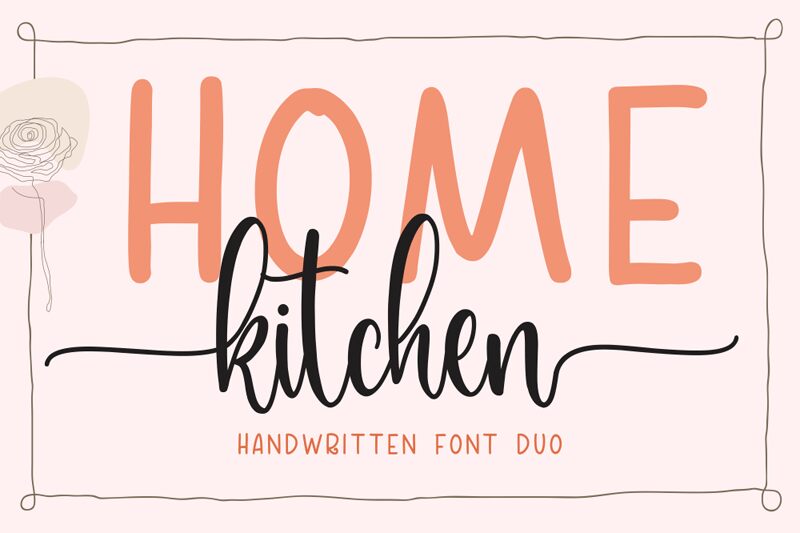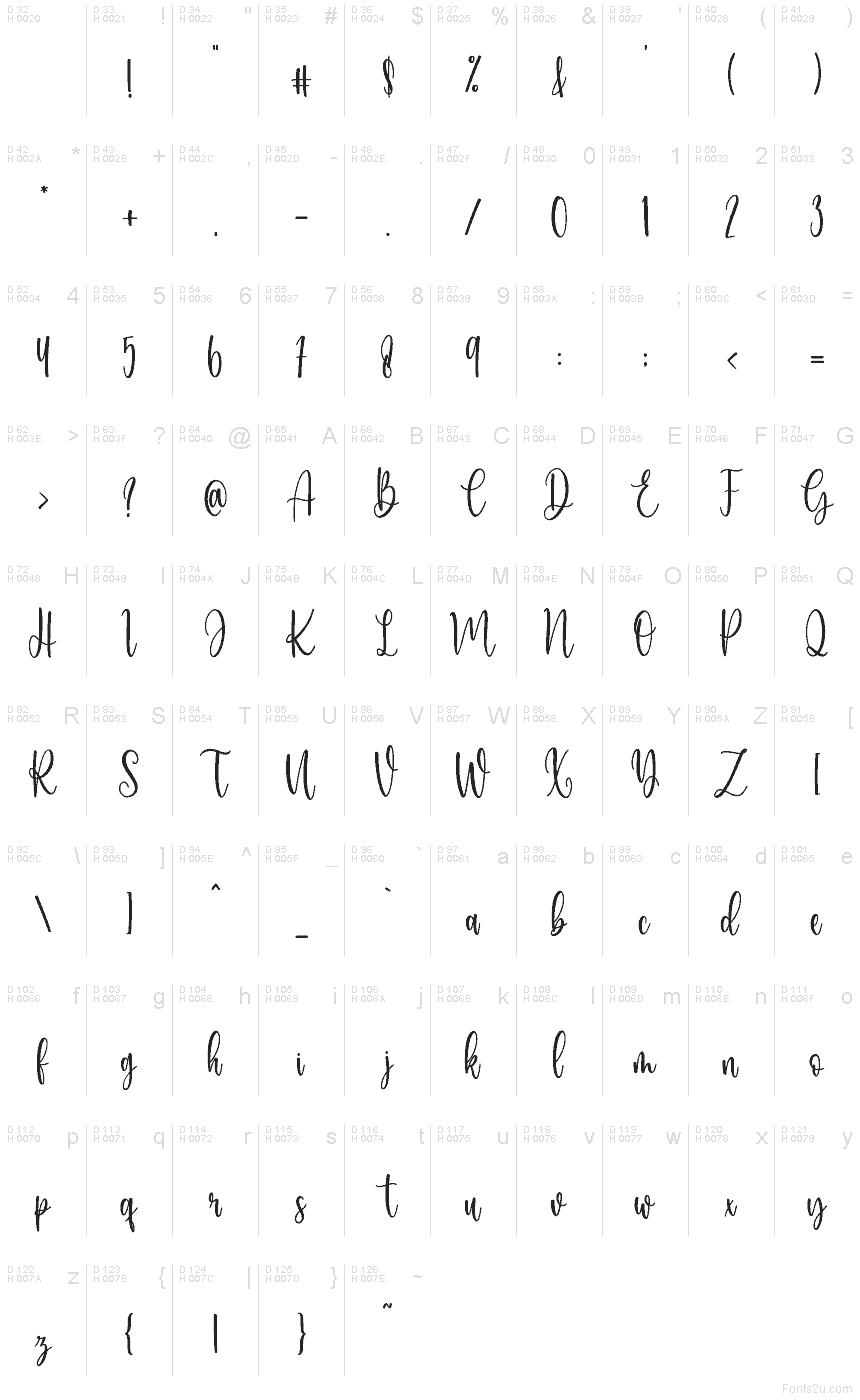
Home Kitchen Script
Home Kitchen Script font by Mozatype is a free handwritten script typeface that feels like it was penned on a favorite recipe card. Its tall, looping letters and playful curls have a light, airy touch, while the consistent rhythm keeps everything legible rather than messy. There’s a cozy, homemade charm here—more “freshly baked pie” than polished calligraphy—which gives designs warmth without losing clarity.
Using Home Kitchen Script, you can add personality to recipe cards, food packaging, kitchen wall art, cafe menus, logo wordmarks, social media posts, and lifestyle blogs. This free font shines at medium to large sizes, where the delicate strokes and swirls can breathe. For balance, pair it with a clean sans serif for body text so the script can do the storytelling in headlines and short phrases.